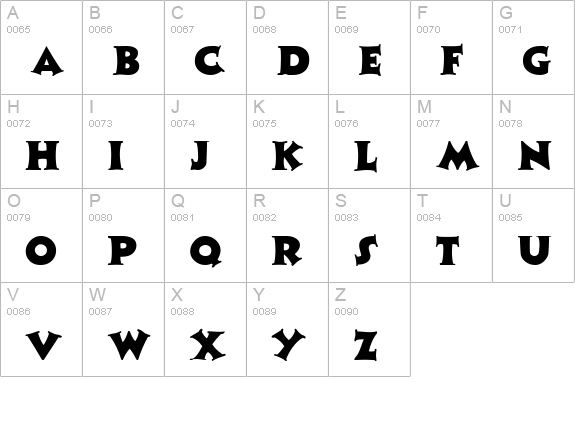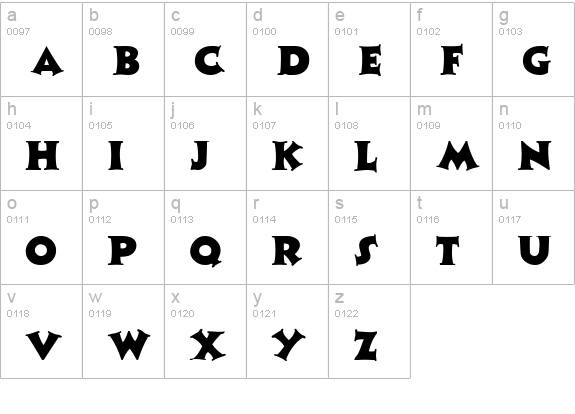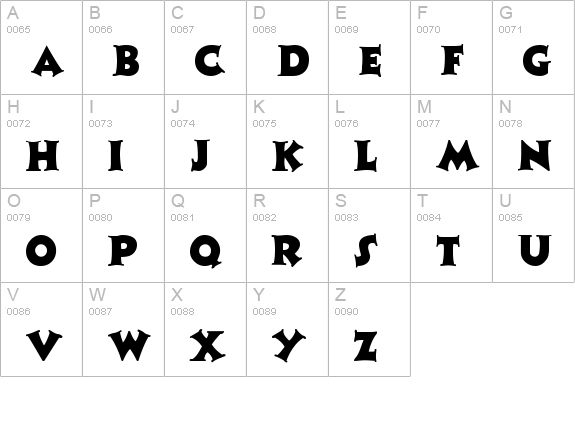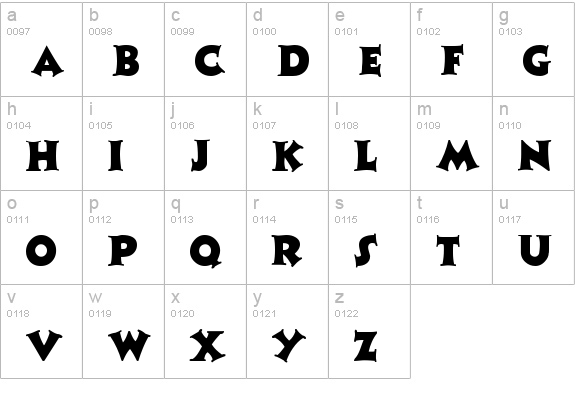
Coaster Font Details
Coaster font is a modern and stylish typeface that exudes elegance and sophistication. Its sleek lines and bold strokes make it perfect for adding a touch of class to any design project. The versatility of Coaster font allows it to be used in a variety of contexts, from branding to editorial design. Whether you're creating a logo, poster, or website, Coaster font is sure to make a statement. The best part about Coaster font is that it is completely free to download at FontsMarket.com. This means you can elevate your designs without breaking the bank. Don't miss out on the opportunity to enhance your creations with this stunning font. Download Coaster font today and let your creativity shine!